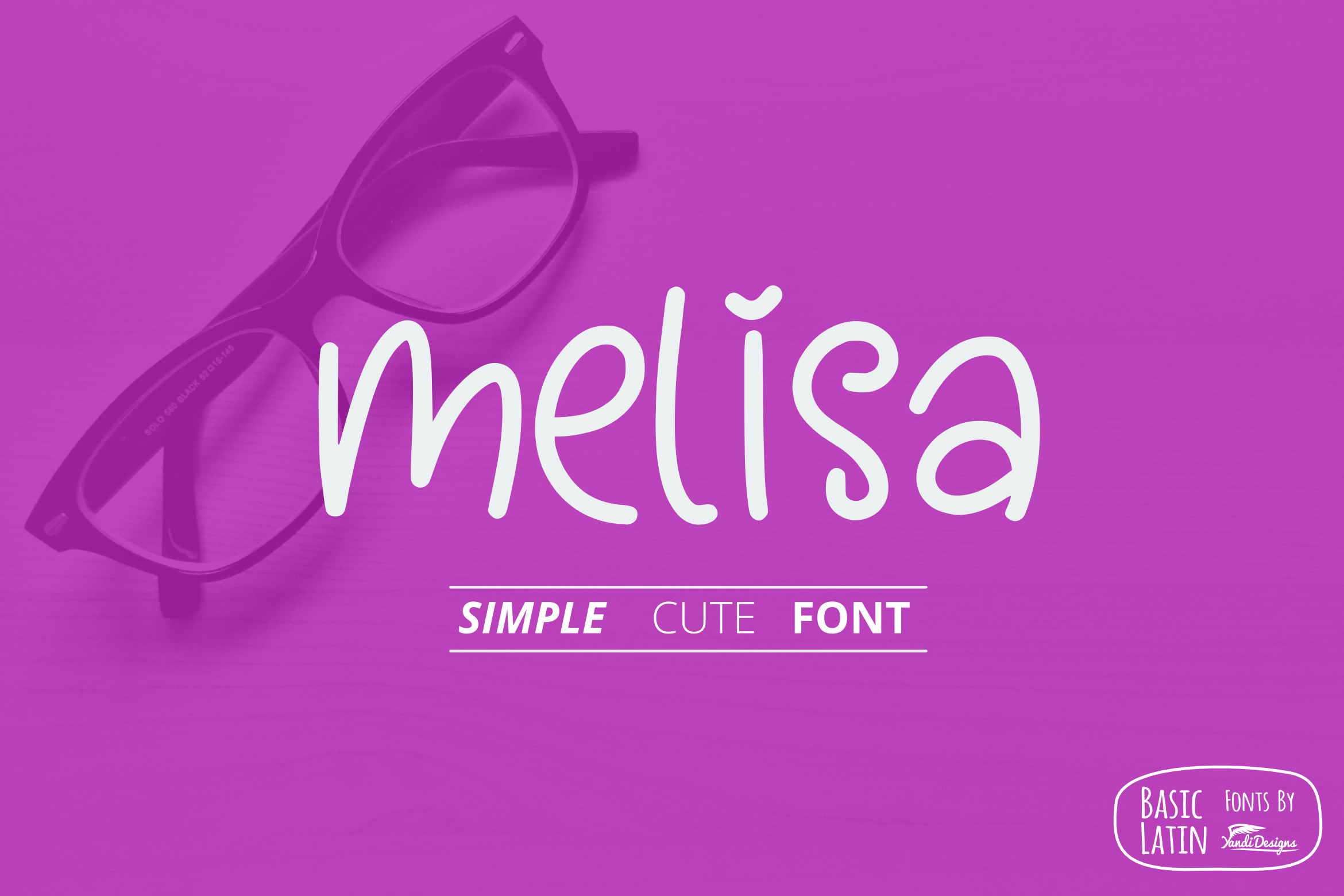
Melisa Fun Font
Simple fun font , suitable for many project , quotes, logo , doodle, heading , title etc.
Unicode Basic Latin (Standard English character , number, symbol)